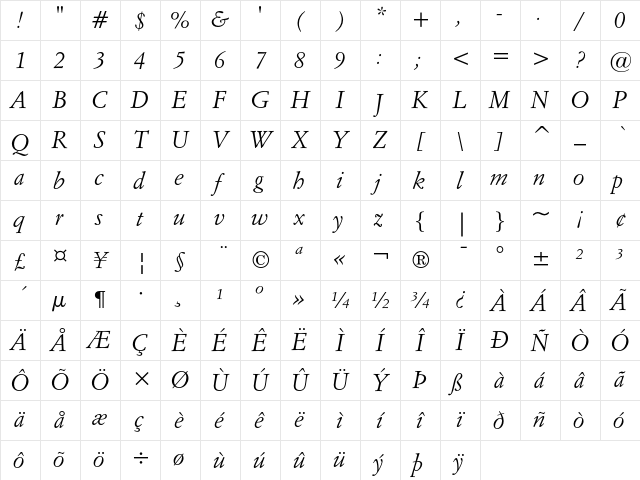
Complete Italian Garamond Italic glyph index. Displaying only characters natively supported by Italian Garamond Italic font.
Italian Garamond is a composed and adaptable typeface that performs quietly and consistently across a wide range of design contexts. The slanted form adds forward momentum and visual energy.